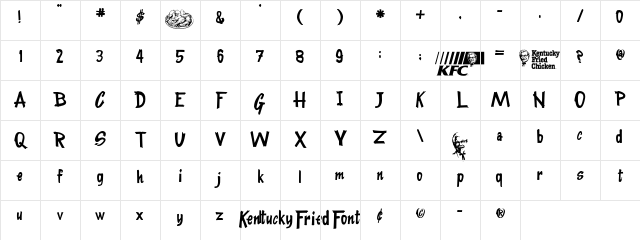
KentuckyFriedFont Regular
Design Context for KentuckyFriedFont
KentuckyFriedFont is a composed and adaptable typeface that performs quietly and consistently across a wide range of design contexts.